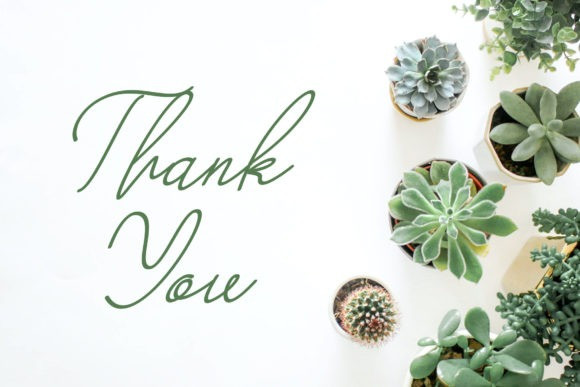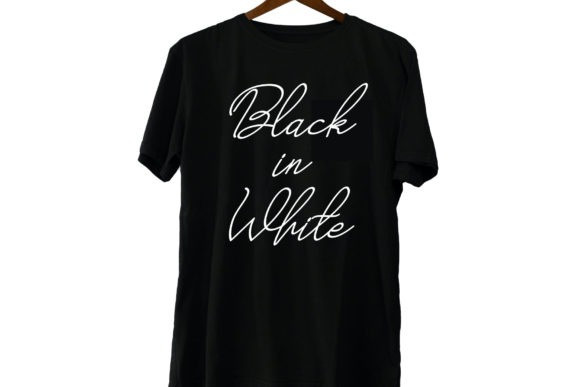
Dead Heart Font
Dead Heart Font is a thin lettered and graceful script font. Fall for its ravishing style and use it to create gorgeous wedding invitations, beautiful stationary art, eye-catching social media posts, and much more!